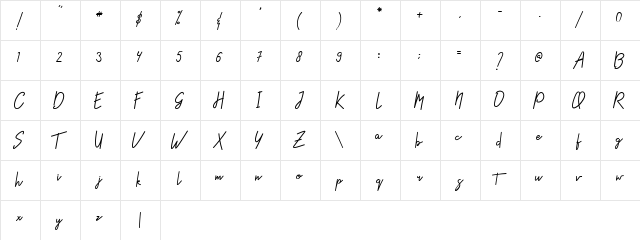
Styniar Regular Font Preview
Styniar Regular
Styniar Regular Font Details
Design Context for Styniar Typeface
Styniar is a composed and adaptable typeface that performs quietly and consistently across a wide range of design contexts.